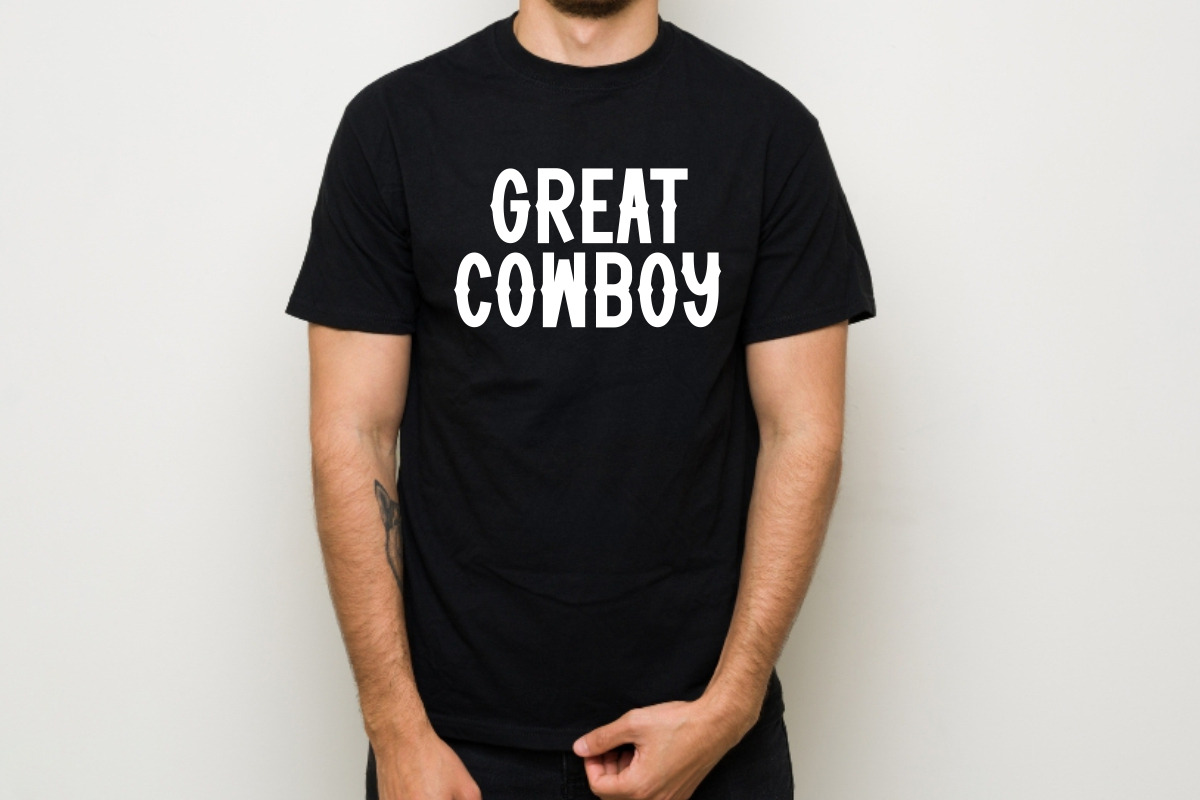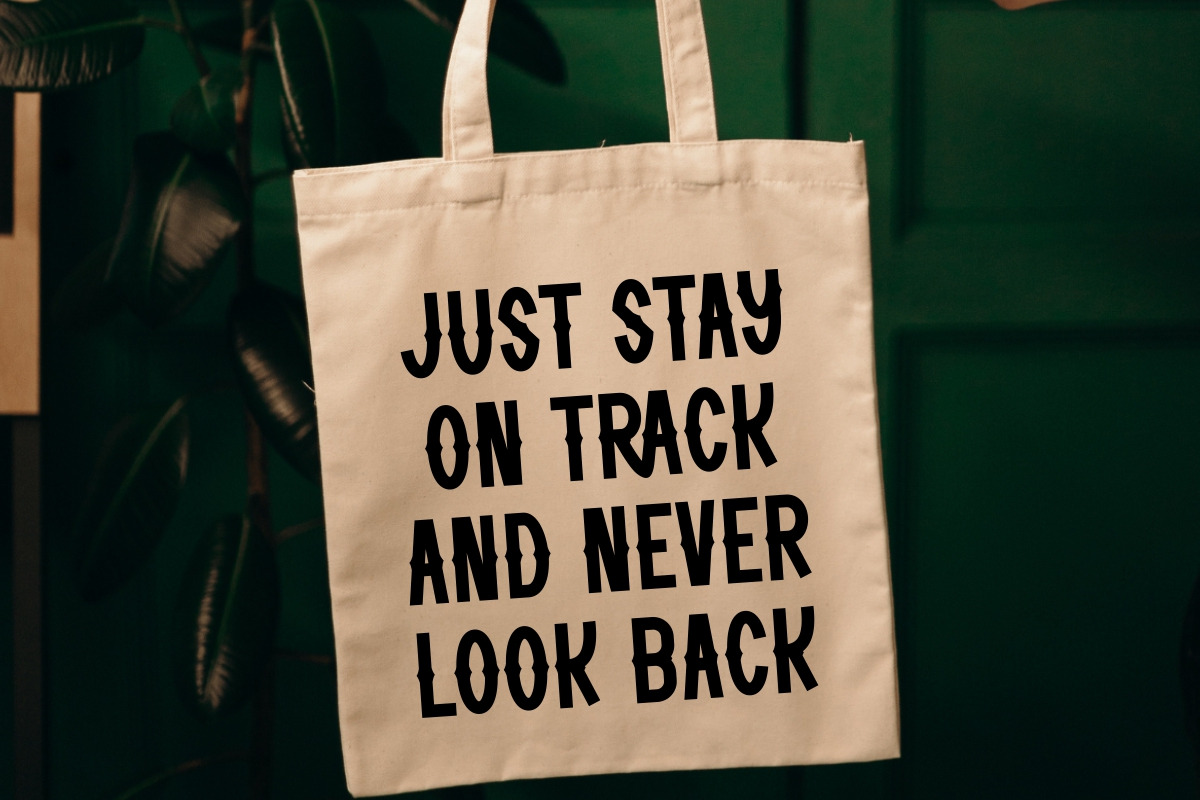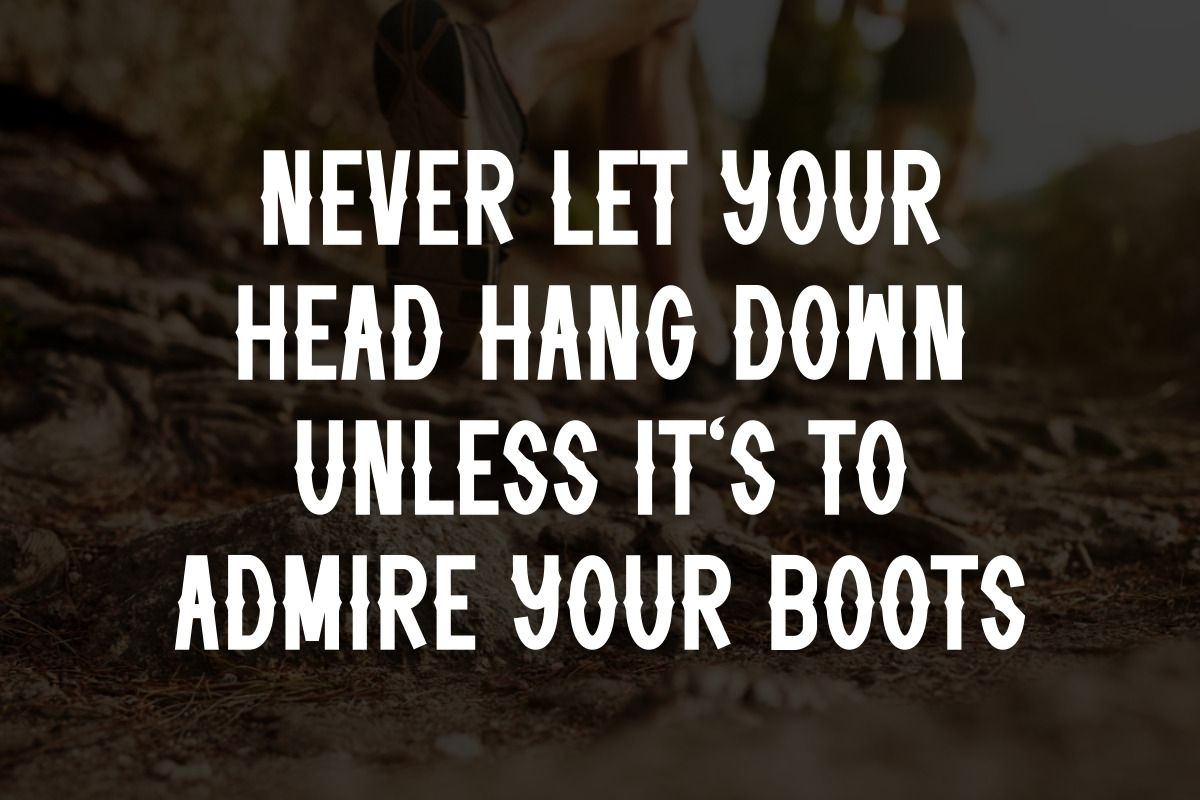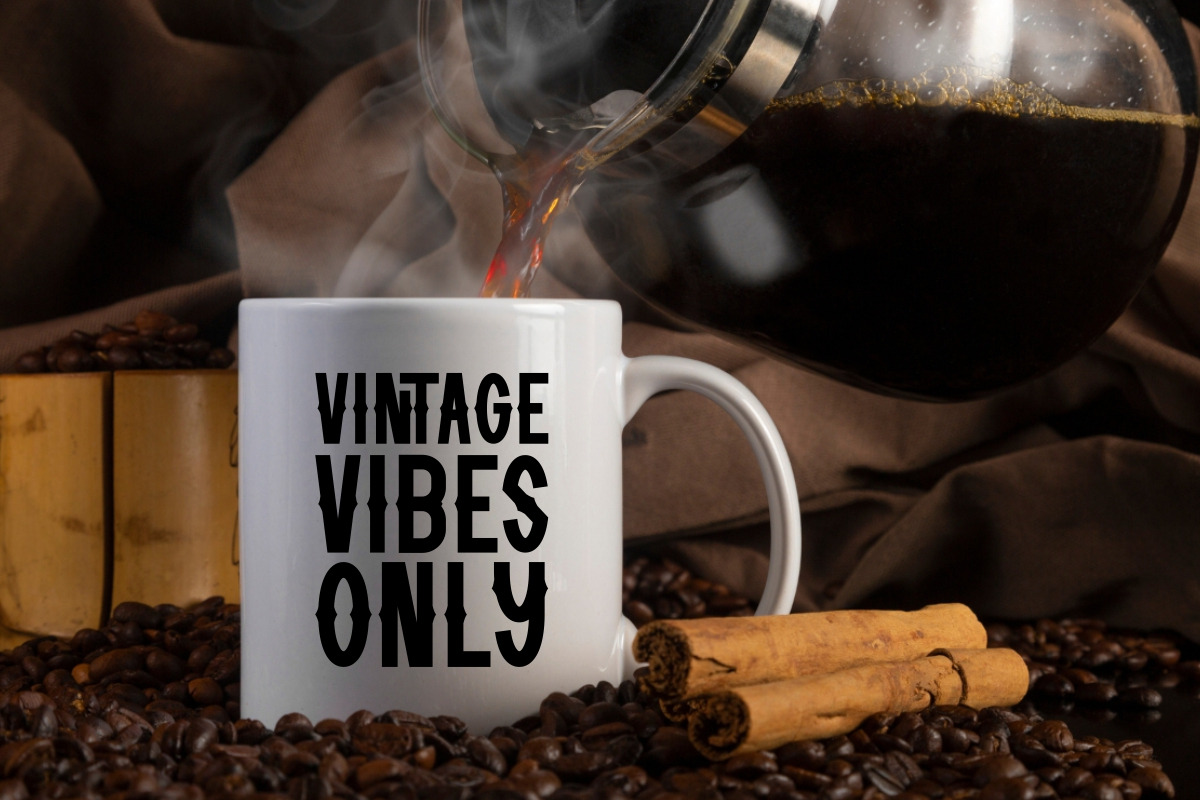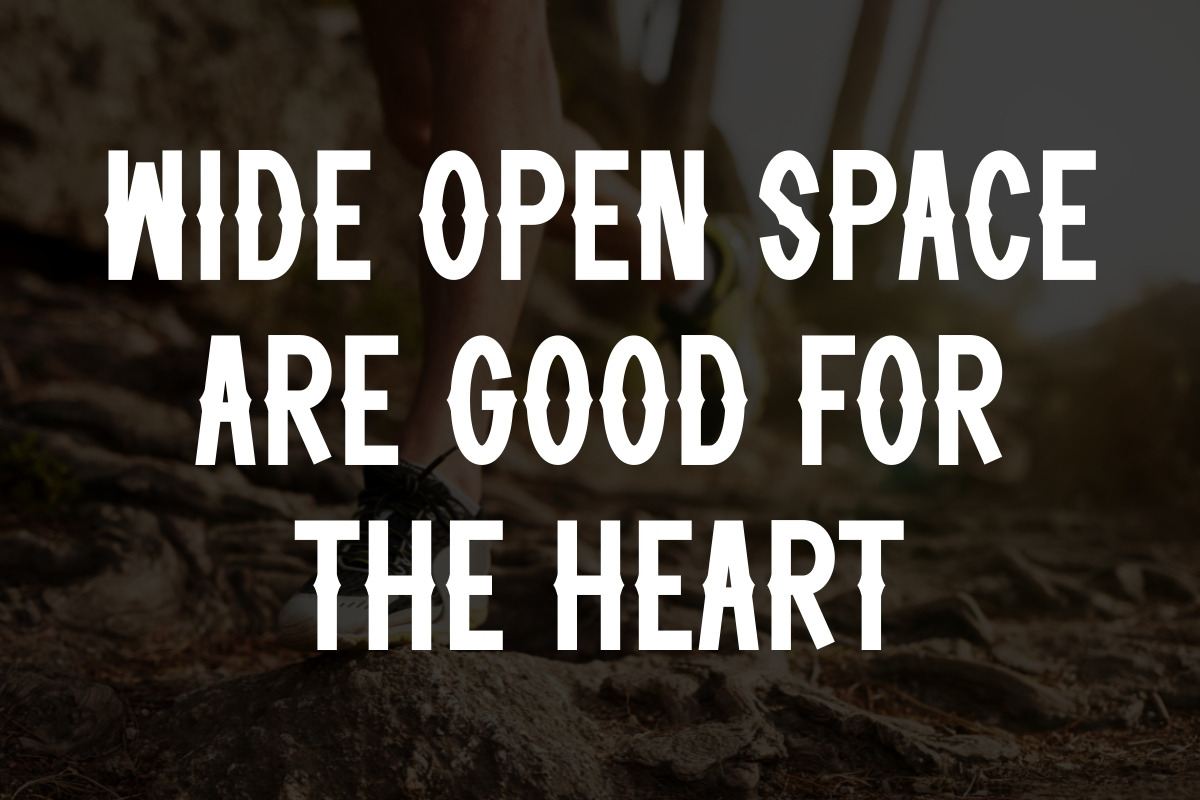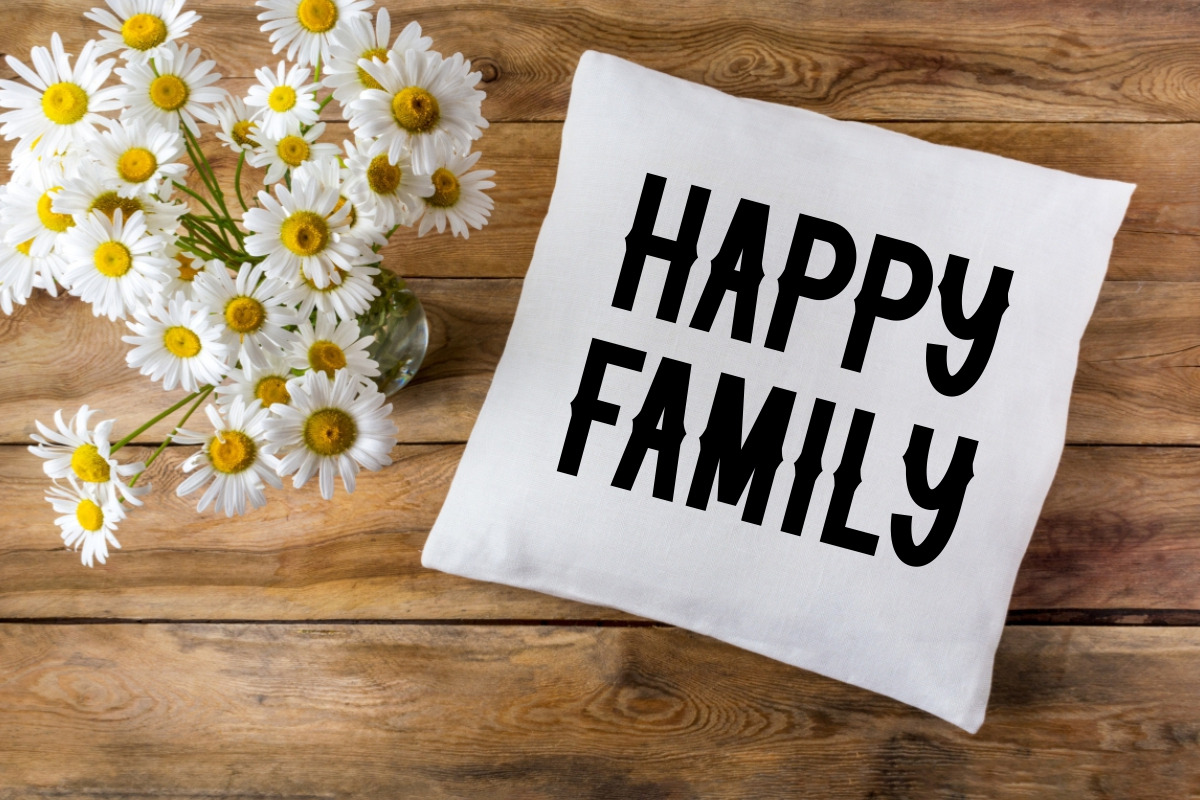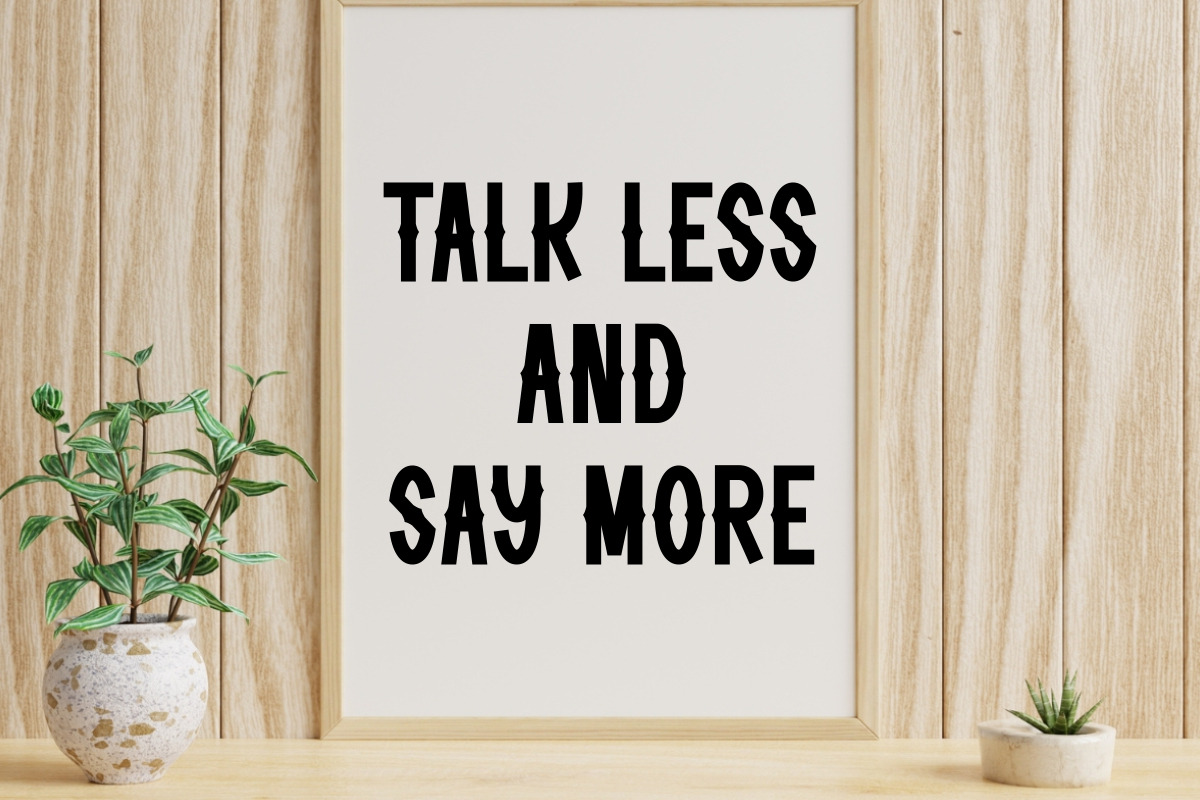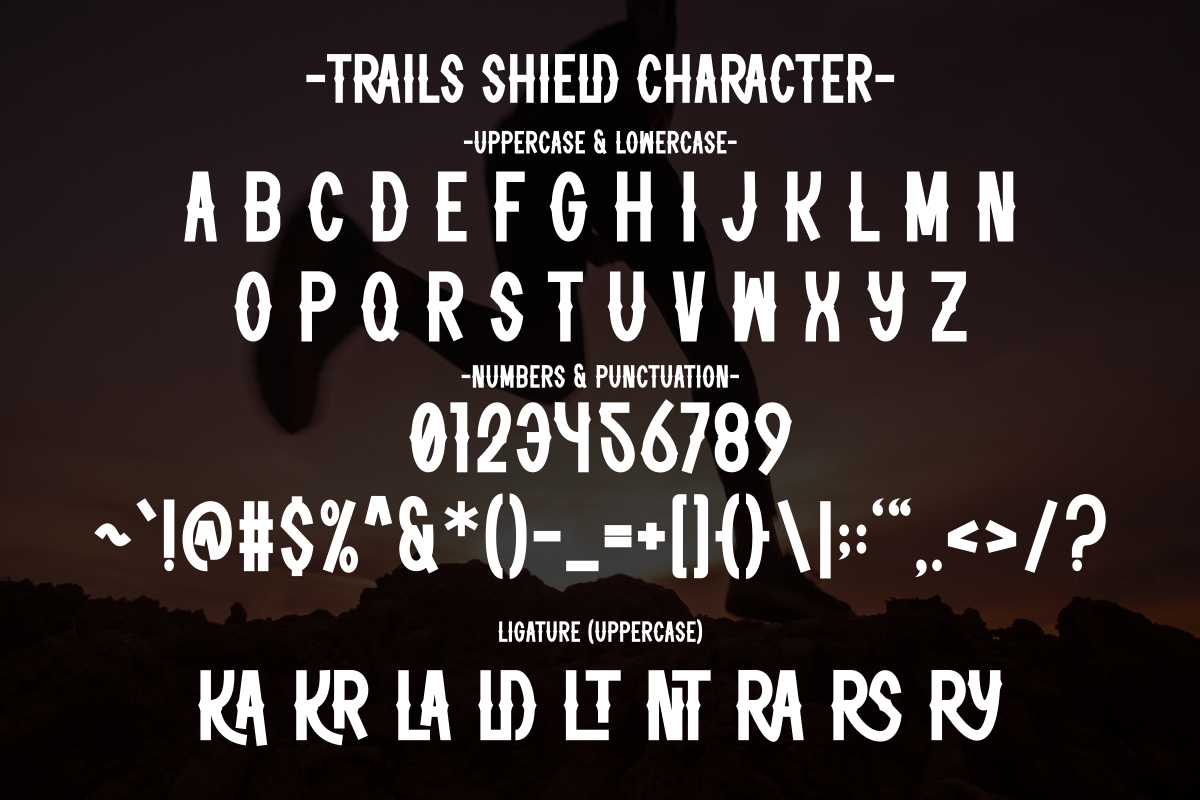
Trails Shield - Western Vintage
Trails Shield is a bold and unique western vintage sans serif font that exudes elegance and character. This versatile font brings a distinctive and stylish edge to your design, making them stand out with its strong and refined look. Perfect for quotes, posters, backgrounds, sportwear, apparel, mugs, pillows and tote bags.